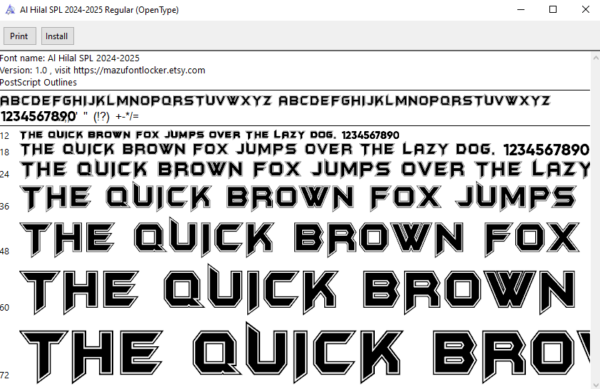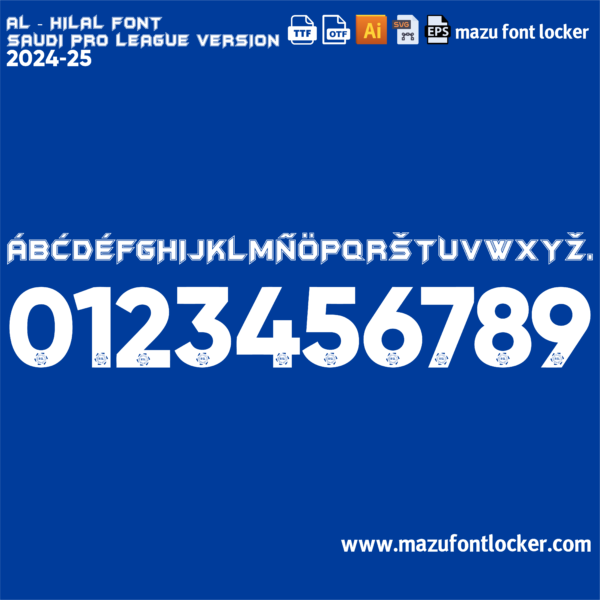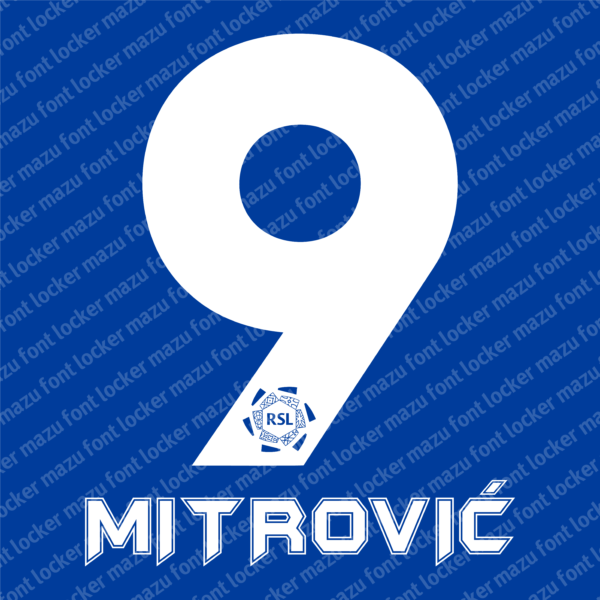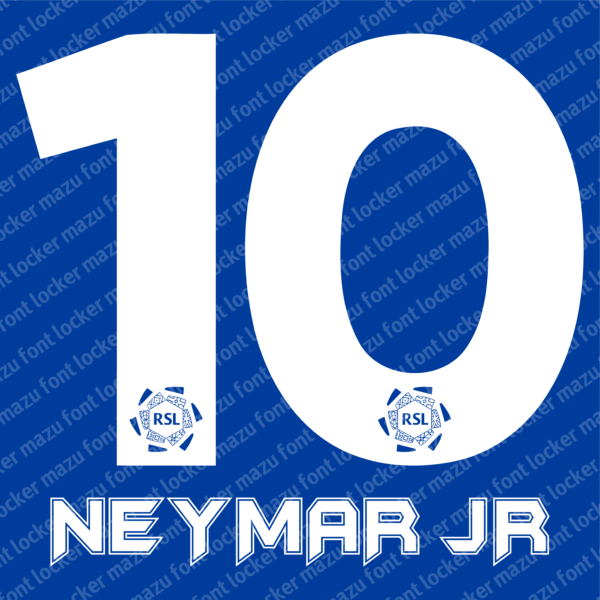
Al Hilal SPL 2024-2025 Font – Explosive Dominant Masterpiece
Download the powerful Al Hilal SPL 2024-2025 Font Vector and bring the unstoppable spirit of the Saudi giants to your designs. This premium football jersey font is expertly crafted to deliver bold, commanding lettering that captures the pure dominance and prestige of Al Hilal during the thrilling 2024-2025 season.
The Al Hilal SPL 2024-2025 Font features sleek, modern edges with strong visual impact, perfectly reflecting the club’s iconic blue identity and fearless attacking style. Whether you’re creating custom jerseys, fan merchandise, posters, or digital content, the Al Hilal SPL 2024-2025 Font gives your projects that professional, high-energy look every time.
Engineered for maximum versatility, this font works flawlessly for both large print and high-resolution digital designs. Celebrate the legacy of one of Asia’s biggest clubs with this essential design asset that radiates victory, passion, and absolute supremacy on and off the pitch.
Al Hilal SPL 2024-2025 Font Vector
The Al Hilal SPL 2024-2025 Font is a premium, high-precision football jersey font vector meticulously engineered to capture the fearless energy, explosive dominance, and electrifying identity of Al Hilal’s legendary 2024-2025 campaign.
Inspired by the mighty Blue Wave, this font unleashes a bold, aggressive, and majestic presence that radiates unbreakable Al Hilal pride, rich heritage, and unstoppable warrior spirit. Every letter and number is recreated with razor-sharp precision to embody the vibrant blue and white identity of one of Asia’s most dominant forces.
🔥 Al Hilal SPL 2024-2025 Font Features
• Authentic 2024-2025 Al Hilal jersey lettering style
The authentic lettering style helps recreate the classic look of the Al Hilal SPL 2024-2025 kit with professional accuracy.
Unlike generic jersey fonts, this premium set is crafted with obsessive attention to authenticity and unmatched precision. Every detail is meticulously recreated from the original match lettering style used by Al Hilal during their explosive 2024-2025 SPL season — capturing the true fire, absolute dominance, and unstoppable spirit of the mighty Blue Wave.
This allows designers and collectors to create ultra-realistic football shirt designs that radiate official kit energy straight from the legendary Kingdom Arena.